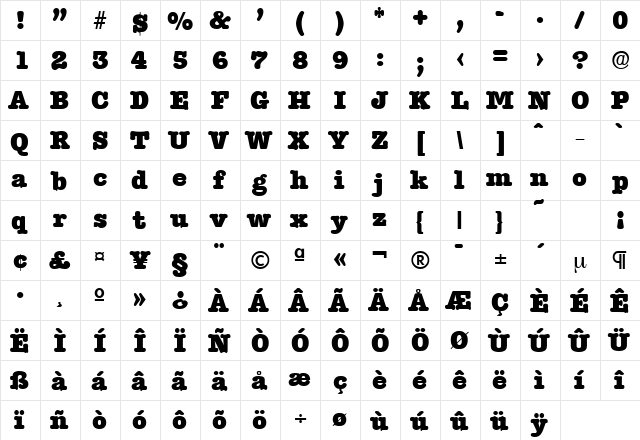
Typewriter-Serial-Heavy Regular
Design Context for Typewriter-Serial-Heavy Typeface
Typewriter-Serial-Heavy brings the precise, column-aligned rhythm of monospaced typography to designs that value technical clarity and systematic order.